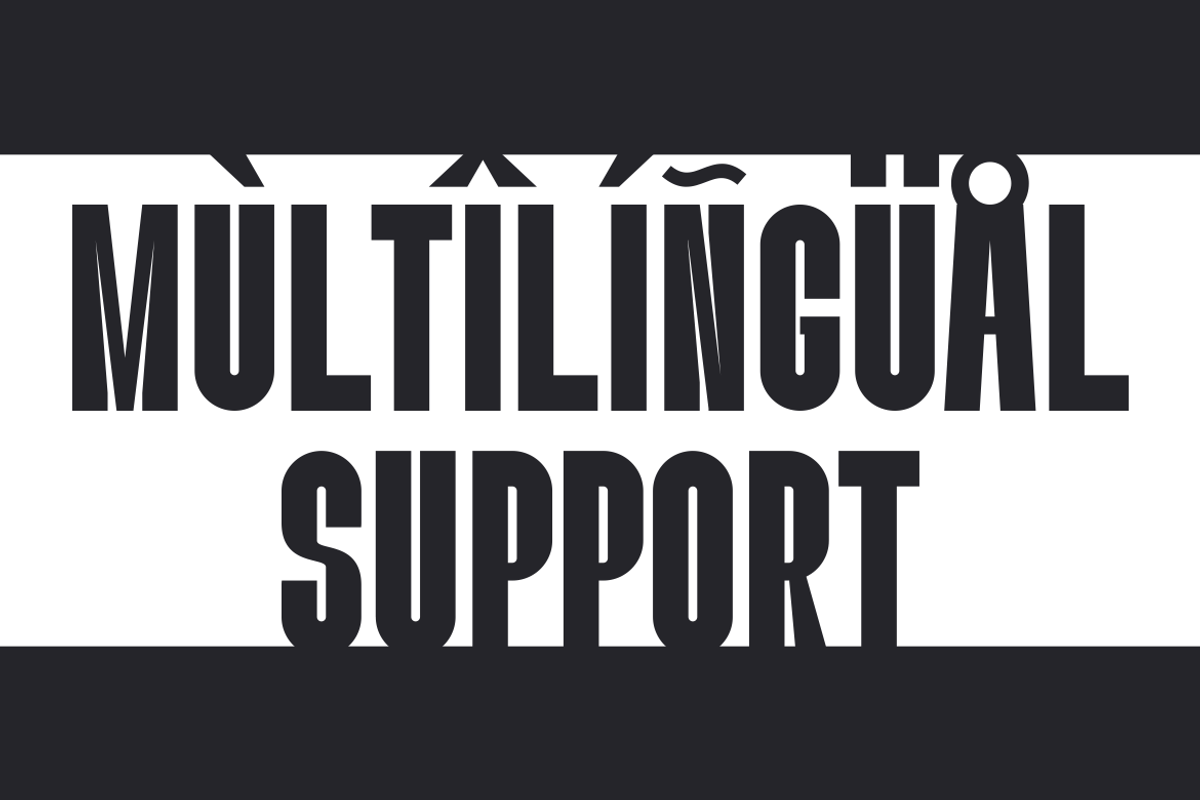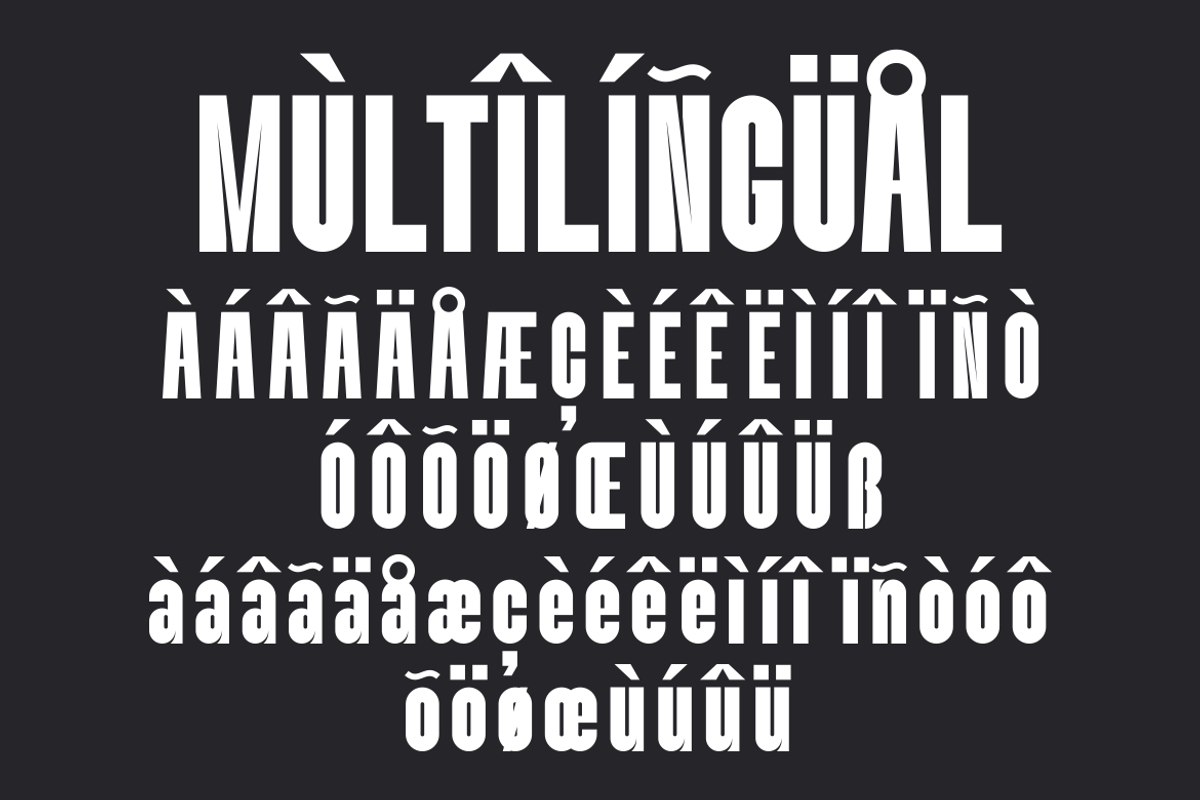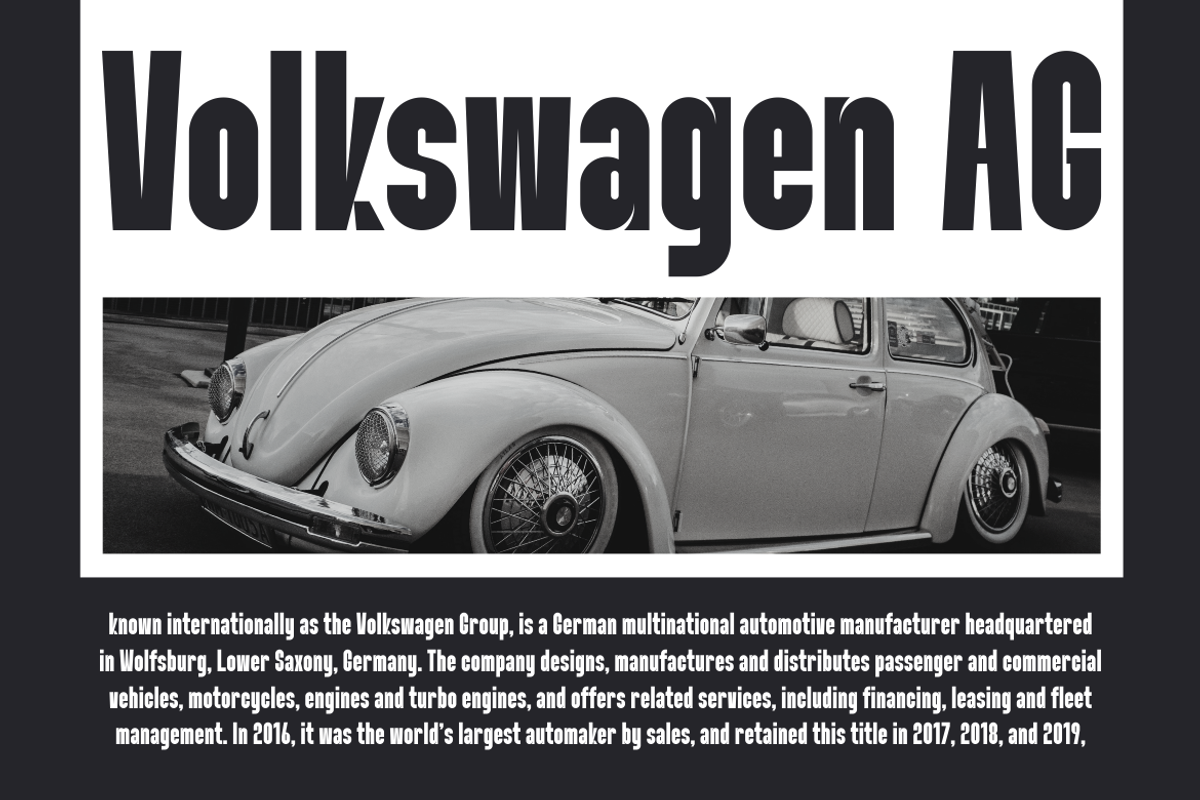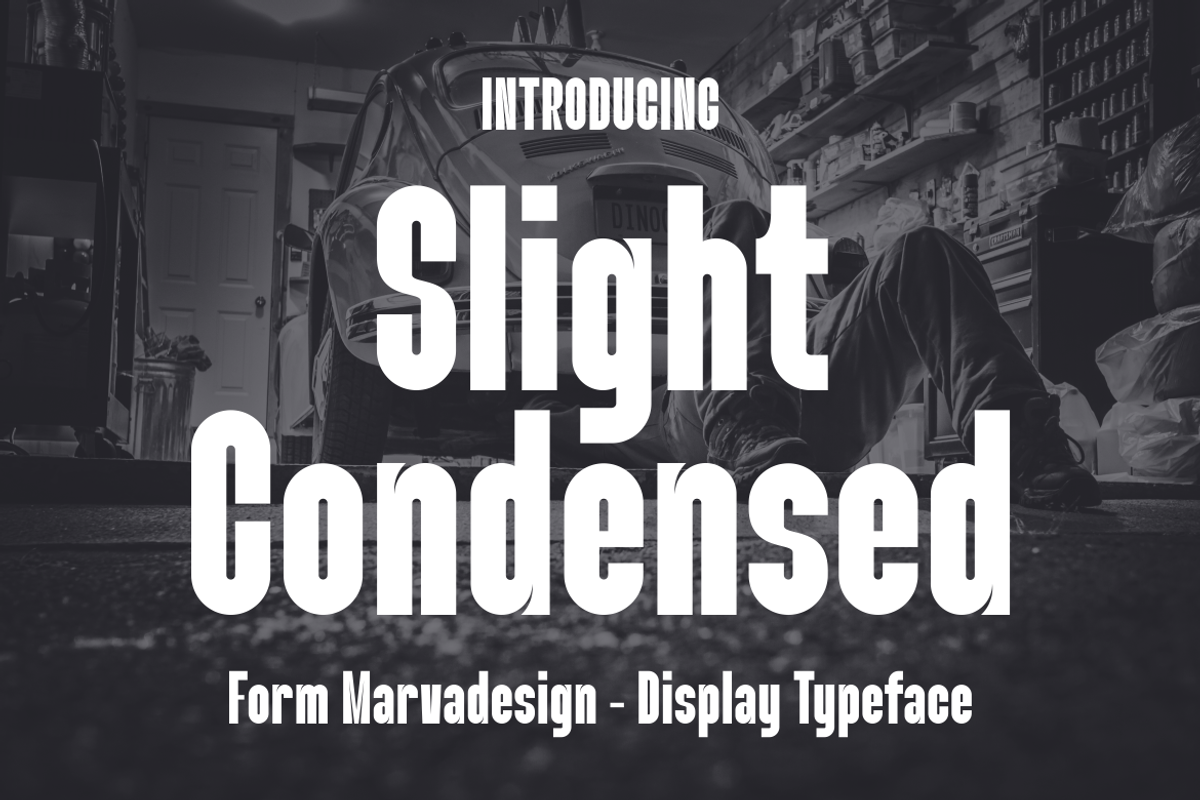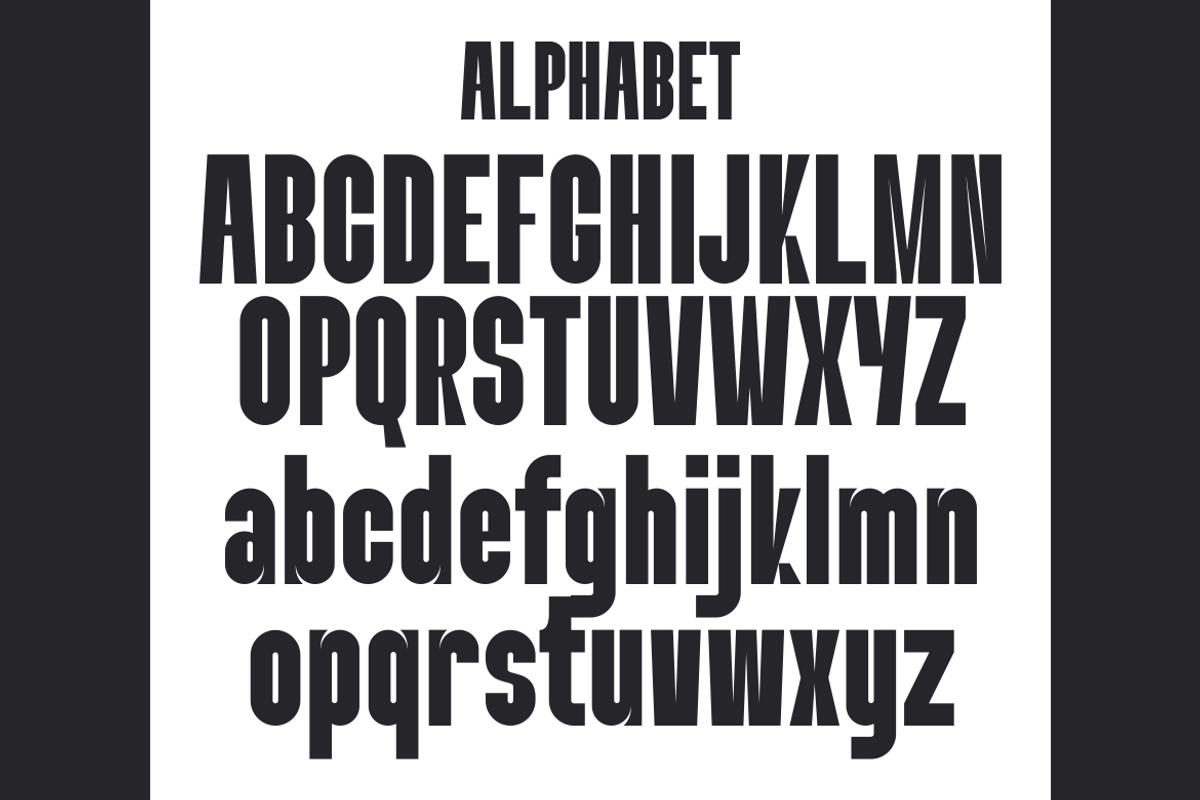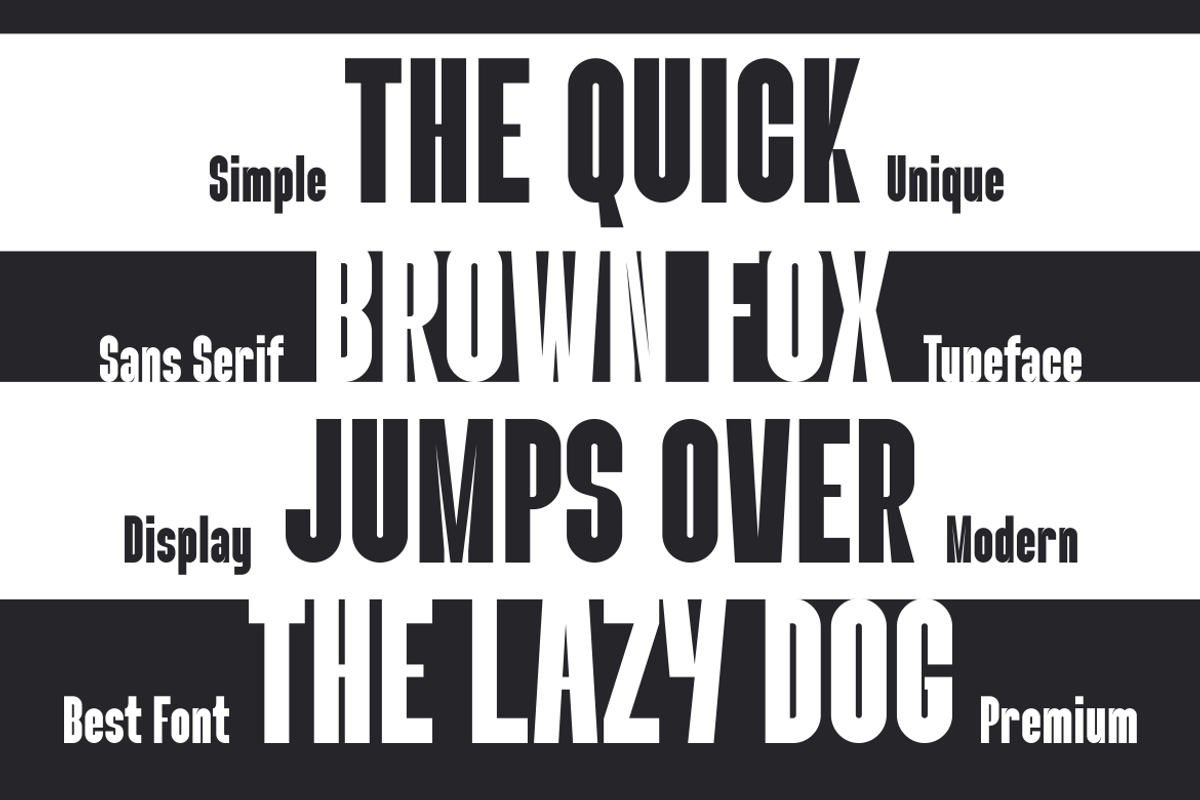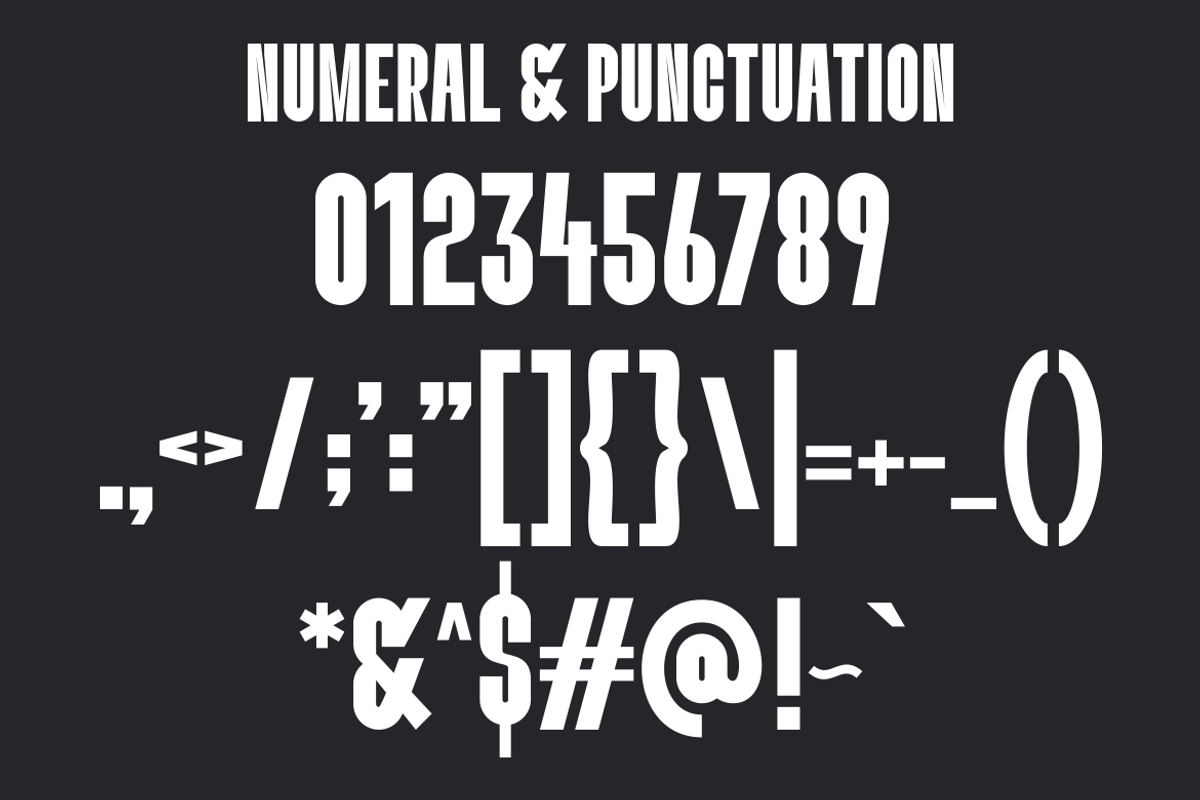
Slight - A Modern Condensed Sans
Introducing our new product Slight Condensed Font - Modern Font Slight Condensed Font*** - Modern Font is a bold and authentic display font. The font is suitable for any branding project like logo,Template Design, Product and many more. outstanding in a wide range of contexts.